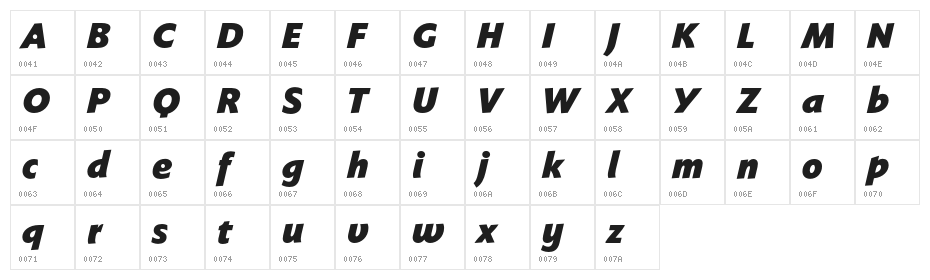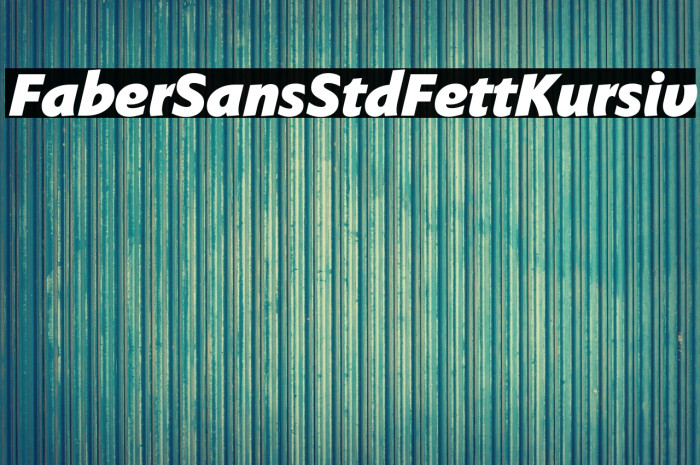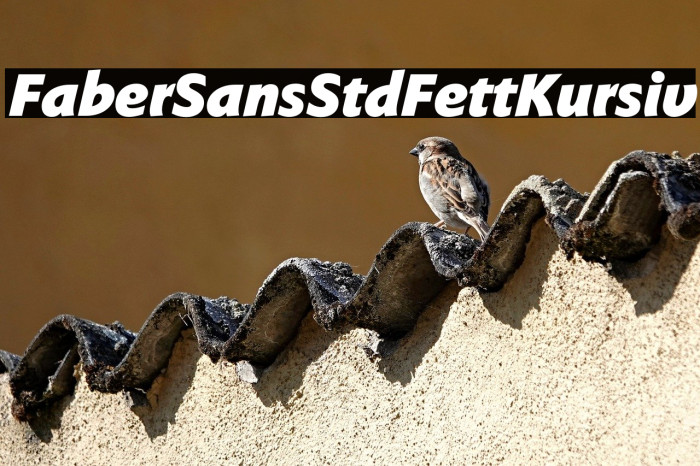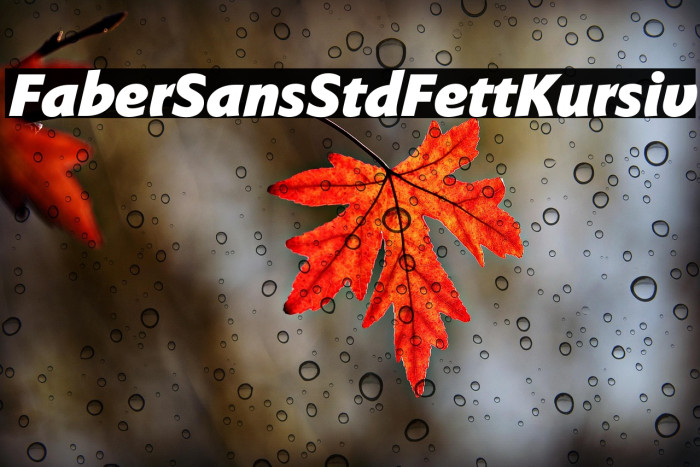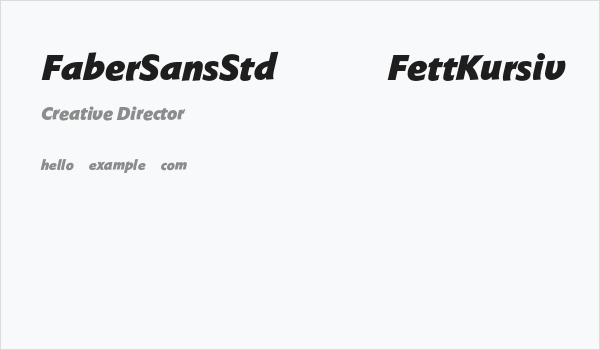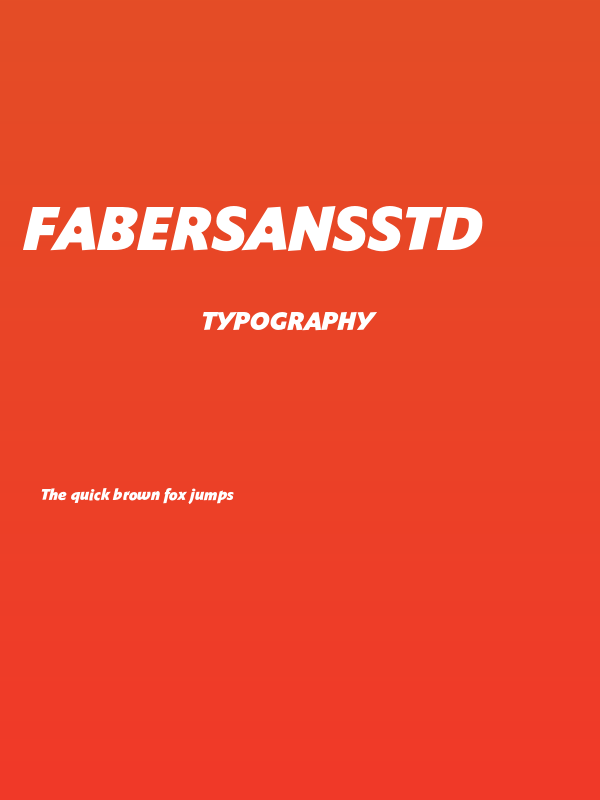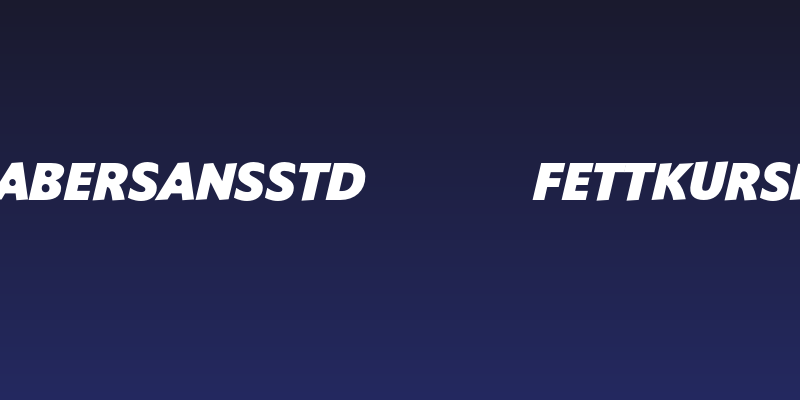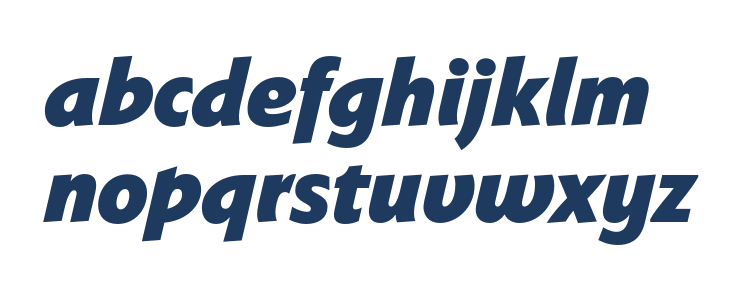
FaberSansStd-96FettKursiv Font
FaberSansStd-96FettKursiv Description
This font features a bold and italicized style, characterized by its strong, dynamic presence. The letters are slightly slanted, giving a sense of movement and energy. The strokes are thick and consistent, providing a robust and confident appearance. The uppercase and lowercase letters maintain a uniform width, ensuring readability and balance. The numbers and special characters are designed to match the boldness of the alphabet, making them stand out effectively. This font's modern and assertive style makes it suitable for impactful design projects.
| Use Case | Headlines, Logos, Advertising |
| Proposed Projects | Ideal for branding, advertising, headlines, and any design requiring a bold statement. |